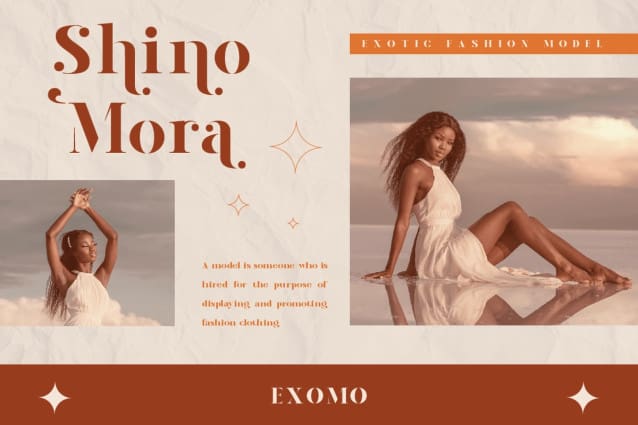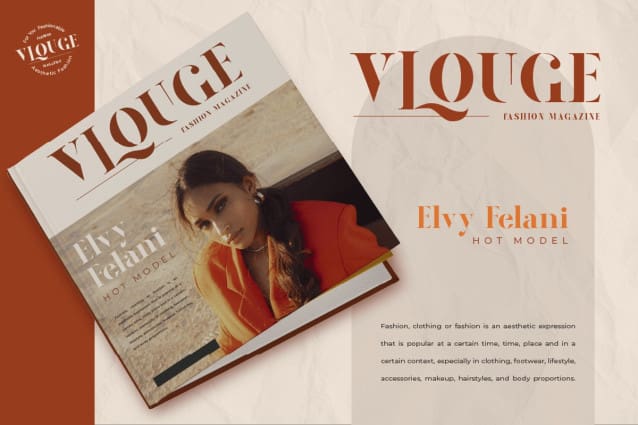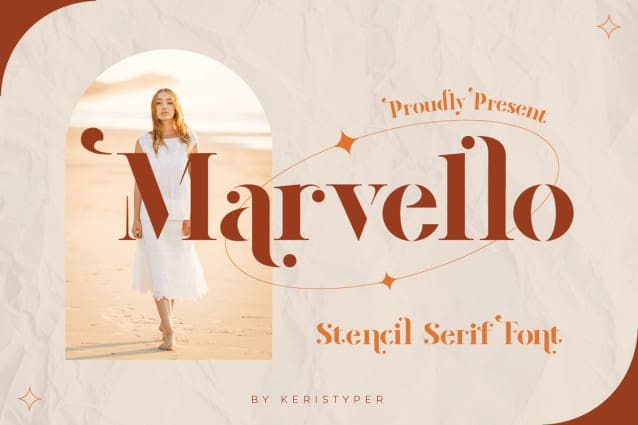
Marvello Font
Marvello Font a classy elegant stencil serif font is perfect for any project. This font is good for logo design, Social media, Movie Titles, Books Titles, short text even long text letters, and good for your secondary text font with sans or serif.